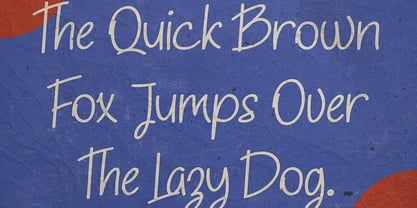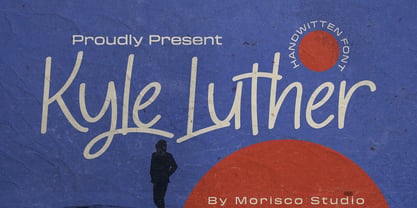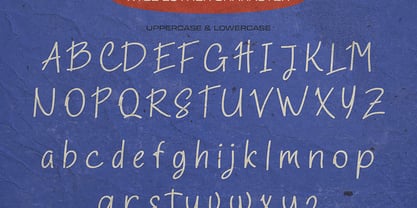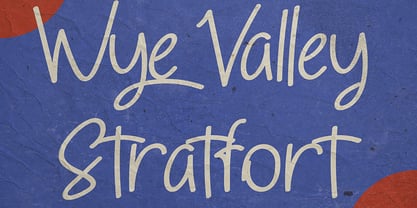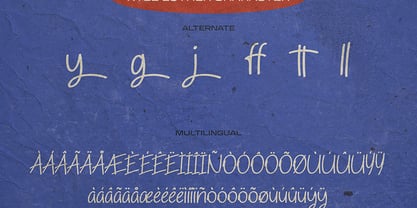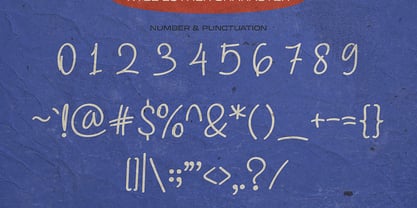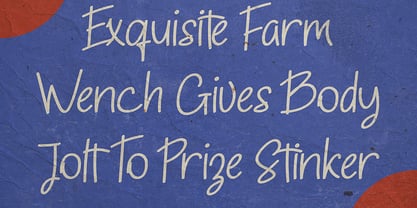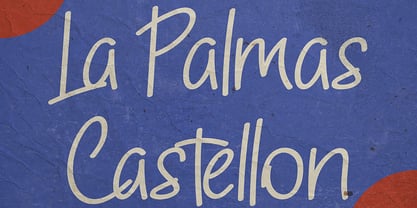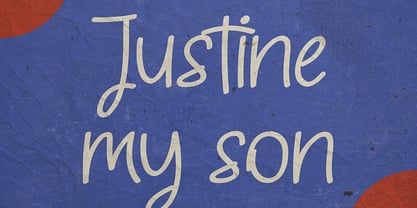
Kyle Luther
Die Schriftfamilie Kyle Luther wurde von Fathur Rahman entworfen und von Morisco Studio veröffentlicht. Kyle Luther enthält 1 Stile. Mehr über diese Familie
Kyle Luther is a Handwritten typeface with a unique character designed by Morisco Studio. This typeface is well-suited for headlines and any project, like branding, print templates, logos, and more.
Features:
* Uppercase & Lowercase
* Symbols & Punctuation